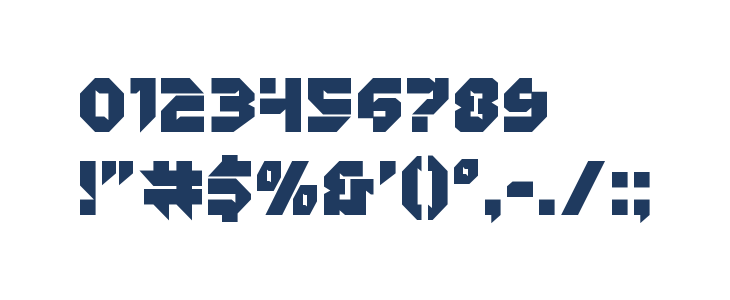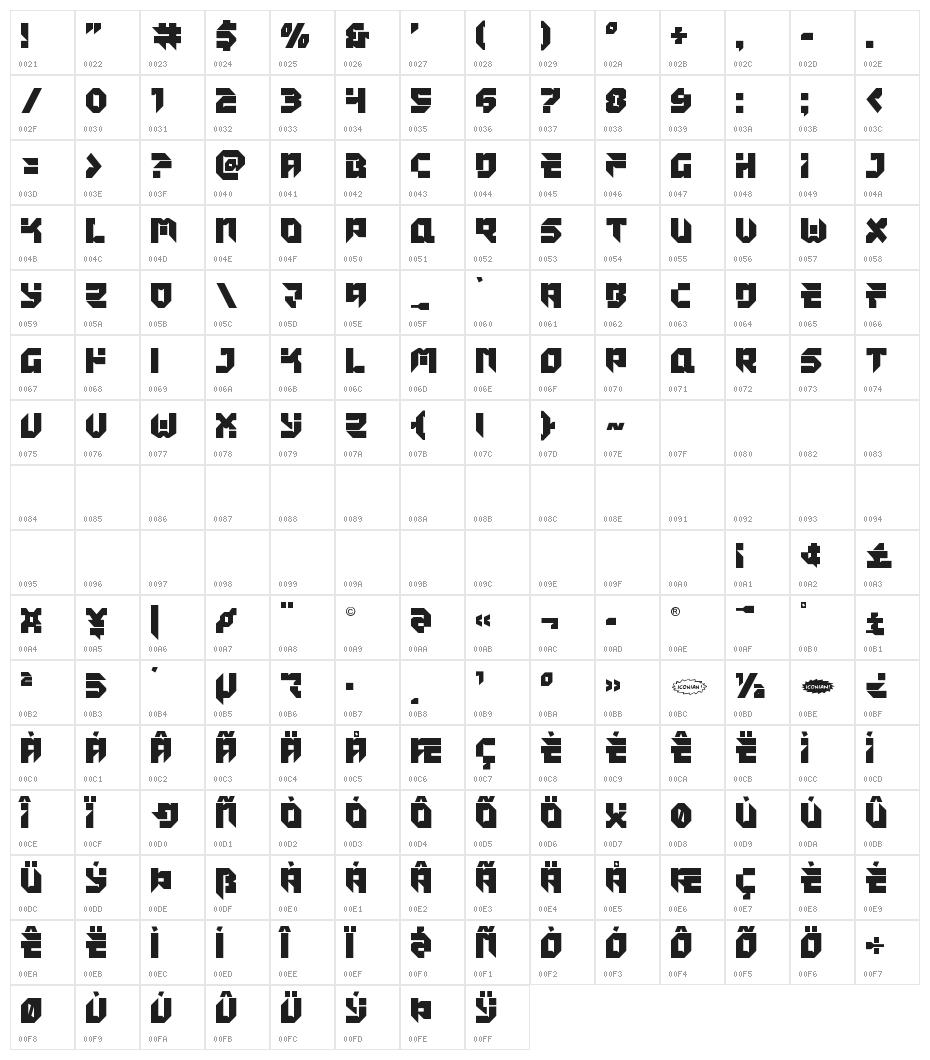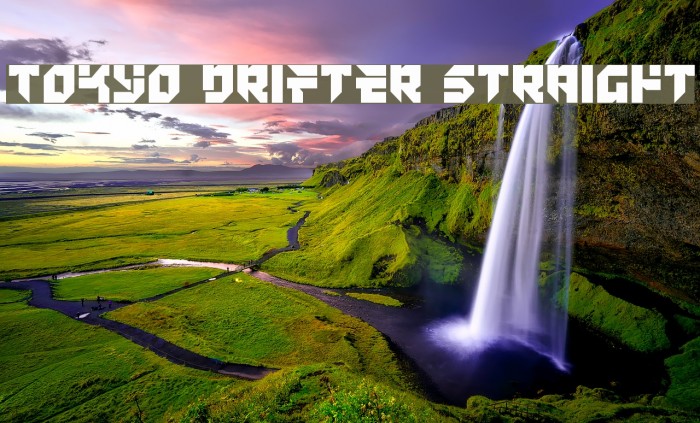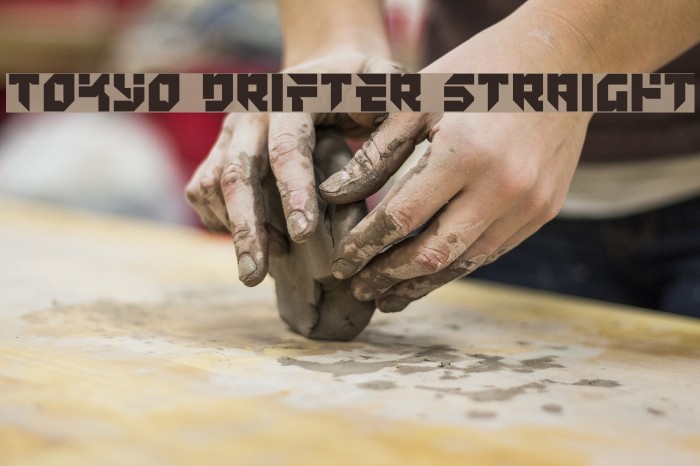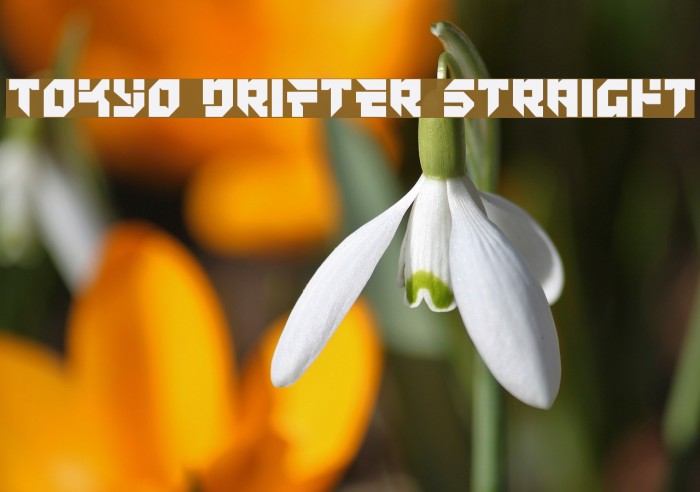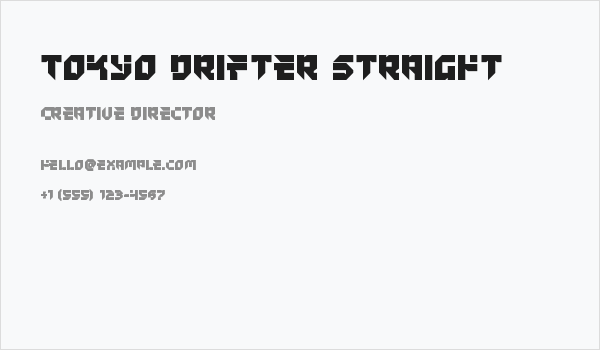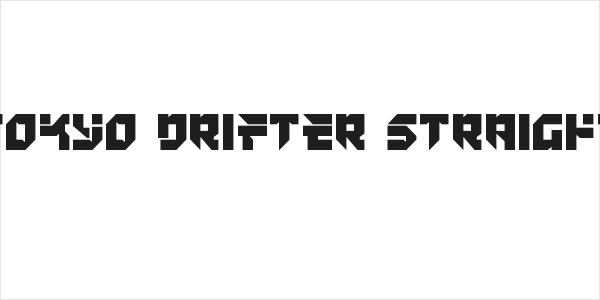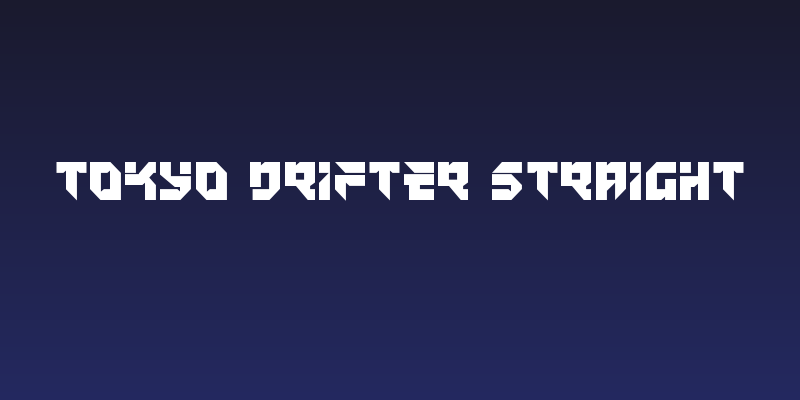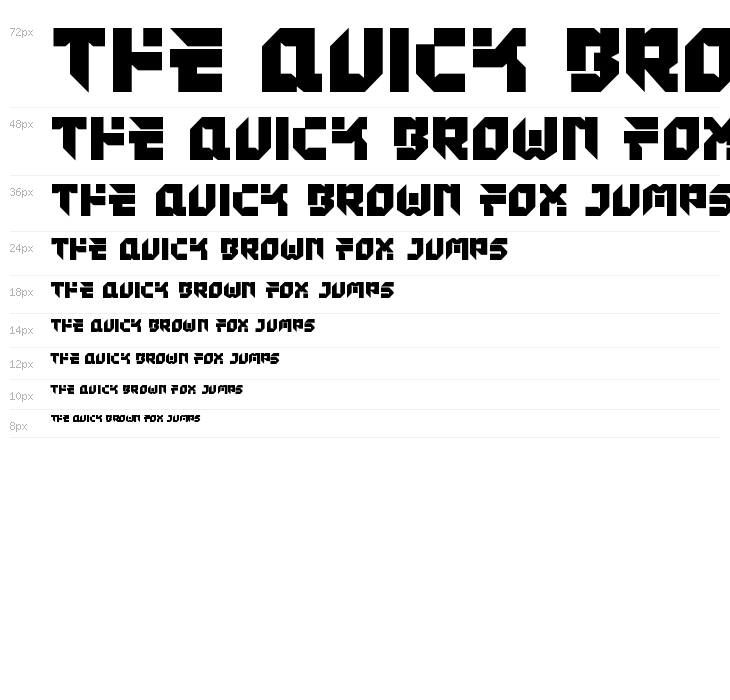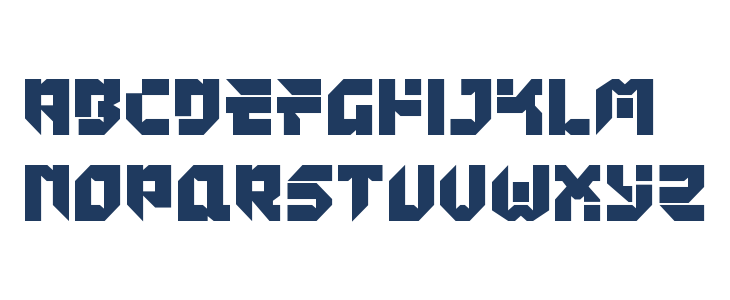
Tokyo Drifter Straight Font
Tokyo Drifter Straight Description
This font features a bold, geometric design with sharp angles and a futuristic aesthetic. The characters are constructed with a blocky, stencil-like appearance, giving it a distinct and edgy look. The uppercase and lowercase letters maintain a consistent style, with each character exhibiting a unique angular cut that adds to its modern appeal. The numerals and special characters follow the same design principles, ensuring uniformity across the font. This typeface is ideal for projects that require a strong, impactful visual presence.
| Proposed Projects | Ideal for branding, posters, video game graphics, and sci-fi themed projects. |